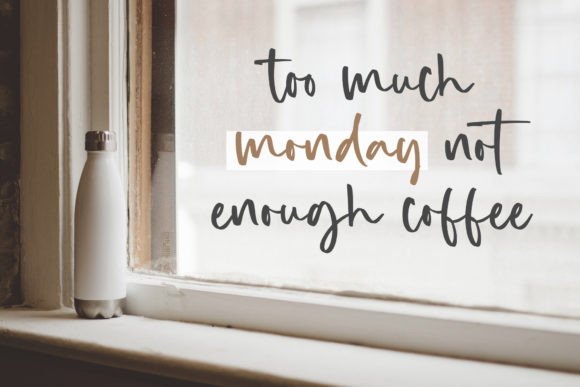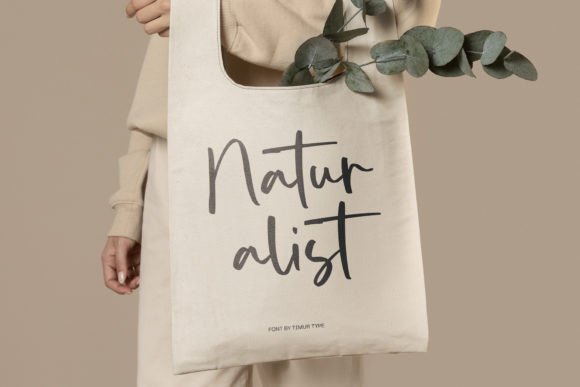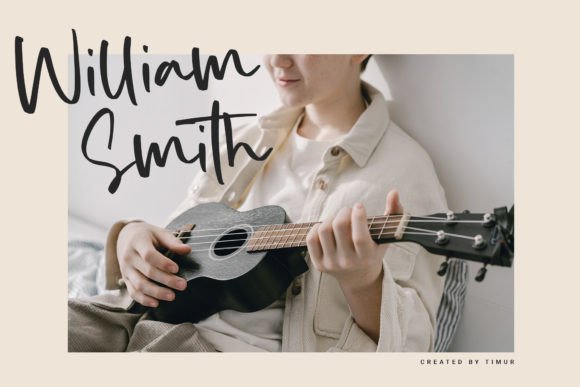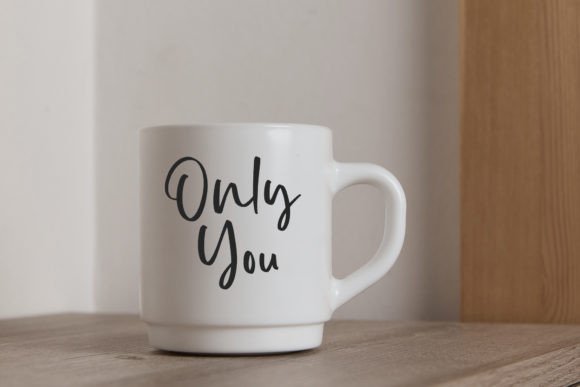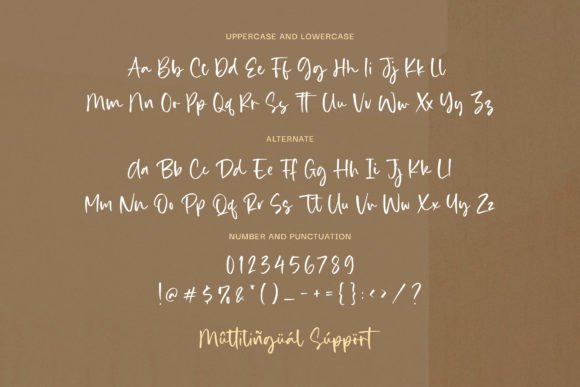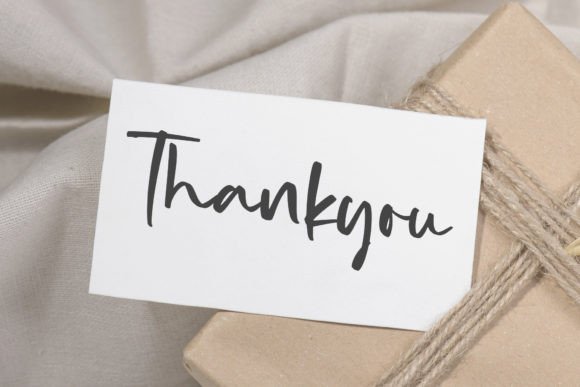
Bomdia Font: Elevate Your Designs with a Fresh and Stylish Handwritten Script
In the world of typography, a good font can make all the difference in creating visually stunning designs. For designers and crafters looking for a unique and stylish handwritten script font, Bomdia is an excellent choice. This fresh and stylish font is perfect for creating eye-catching logos, branding, and quotes that will leave a lasting impression.
The Unique Charm of Bomdia Font
Bomdia font boasts a distinctive and beautiful touch, with every letter carefully crafted to bring a sense of elegance and sophistication to your designs. Its handwritten script style gives it a personal and approachable feel, making it ideal for a wide range of design applications, from branding and advertising to packaging and digital media.
Why Choose Bomdia Font?
So, what sets Bomdia font apart from other fonts in its category? Here are just a few reasons why designers and crafters love working with Bomdia:
- Unique and Beautiful Touch: Each letter in the Bomdia font has been carefully designed to have a unique and beautiful touch, ensuring that your designs stand out from the crowd.
- Fresh and Stylish: Bomdia’s fresh and stylish design makes it perfect for creating modern and trendy designs that will appeal to a wide range of audiences.
- Ease of Use: Bomdia font is easy to read and works well in a variety of design applications, making it a versatile choice for designers and crafters.
- Elegant and Sophisticated: The elegant and sophisticated style of Bomdia font makes it perfect for creating high-end designs that exude luxury and refinement.
Design Applications for Bomdia Font
Bomdia font is a versatile design tool that can be used in a wide range of applications, including:
- Logo Design: Create eye-catching logos that showcase your brand’s personality and style with Bomdia font.
- Branding: Use Bomdia font to create consistent and recognizable branding across all your marketing materials.
- Quotes and Typography: Add a touch of elegance and sophistication to your quotes and typography with Bomdia font.
- Packaging Design: Use Bomdia font to create beautiful and eye-catching packaging designs that stand out on store shelves.
- Digital Media: Bomdia font works well in digital media, including social media graphics, website headers, and more.
Tips for Using Bomdia Font Effectively
To get the most out of Bomdia font, here are a few tips to keep in mind:
- Use it Sparingly: Bomdia font is a statement font, so use it sparingly to add emphasis and create visual interest.
- Pair it with Other Fonts: Experiment with pairing Bomdia font with other fonts to create a unique and visually appealing design.
- Adjust the Size and Color: Adjust the size and color of Bomdia font to create visual hierarchy and add depth to your design.
In conclusion, Bomdia font is a fresh and stylish handwritten script font that is perfect for designers and crafters looking to elevate their designs. With its unique and beautiful touch, elegant and sophisticated style, and ease of use, Bomdia font is an excellent choice for creating eye-catching logos, branding, and quotes. Whether you’re a seasoned designer or just starting out, Bomdia font is a versatile design tool that is sure to inspire your creativity and take your designs to the next level.